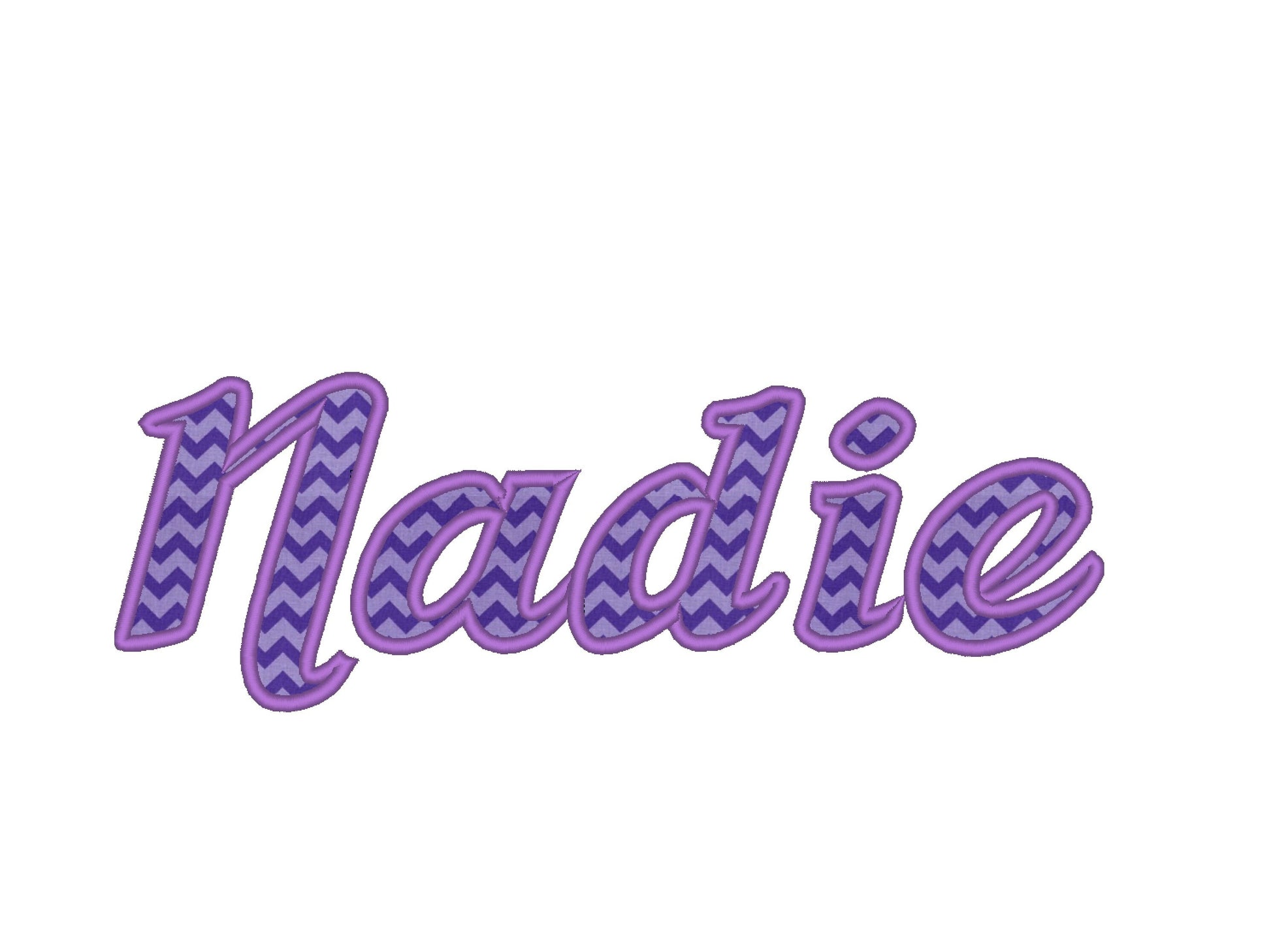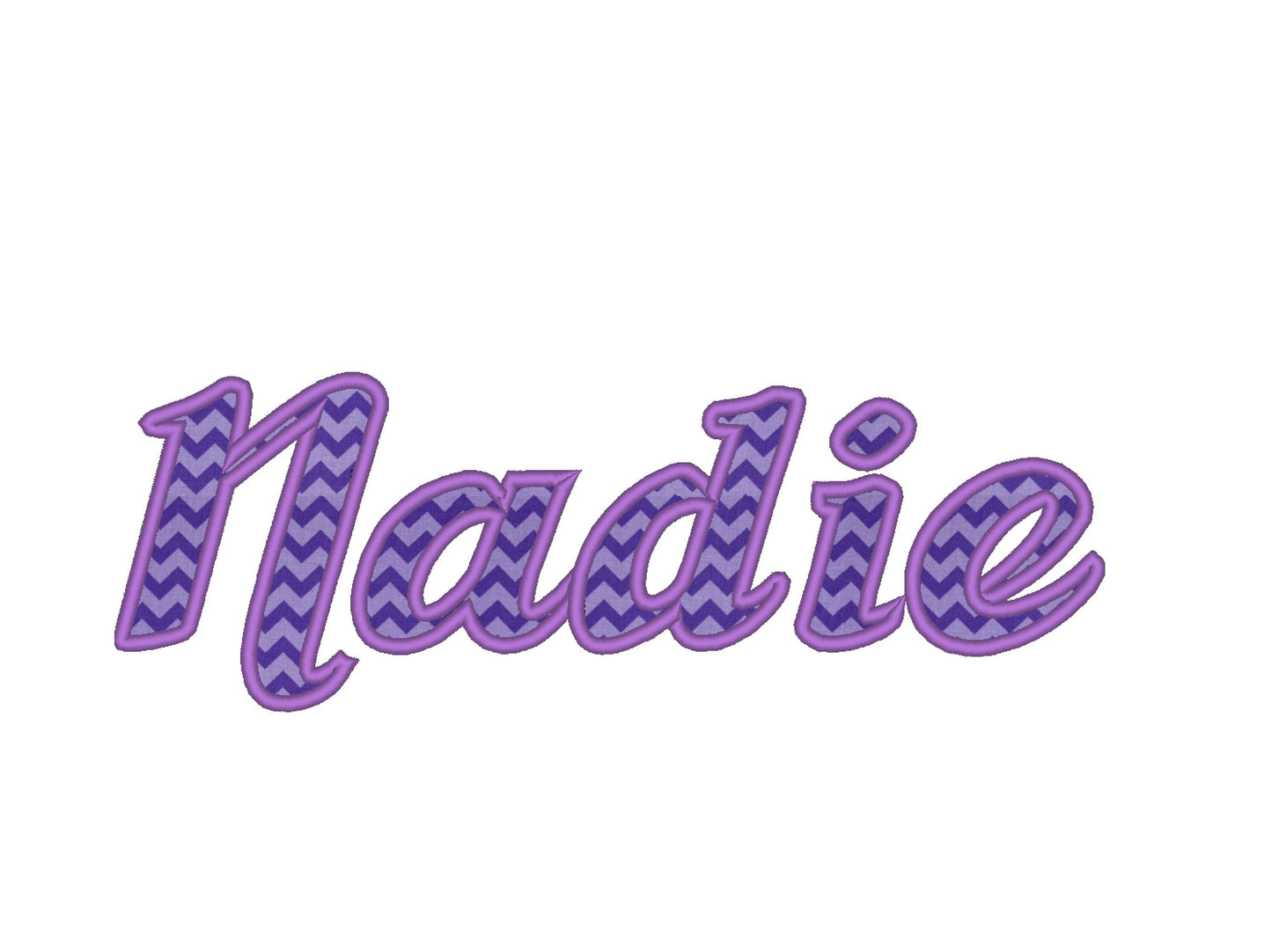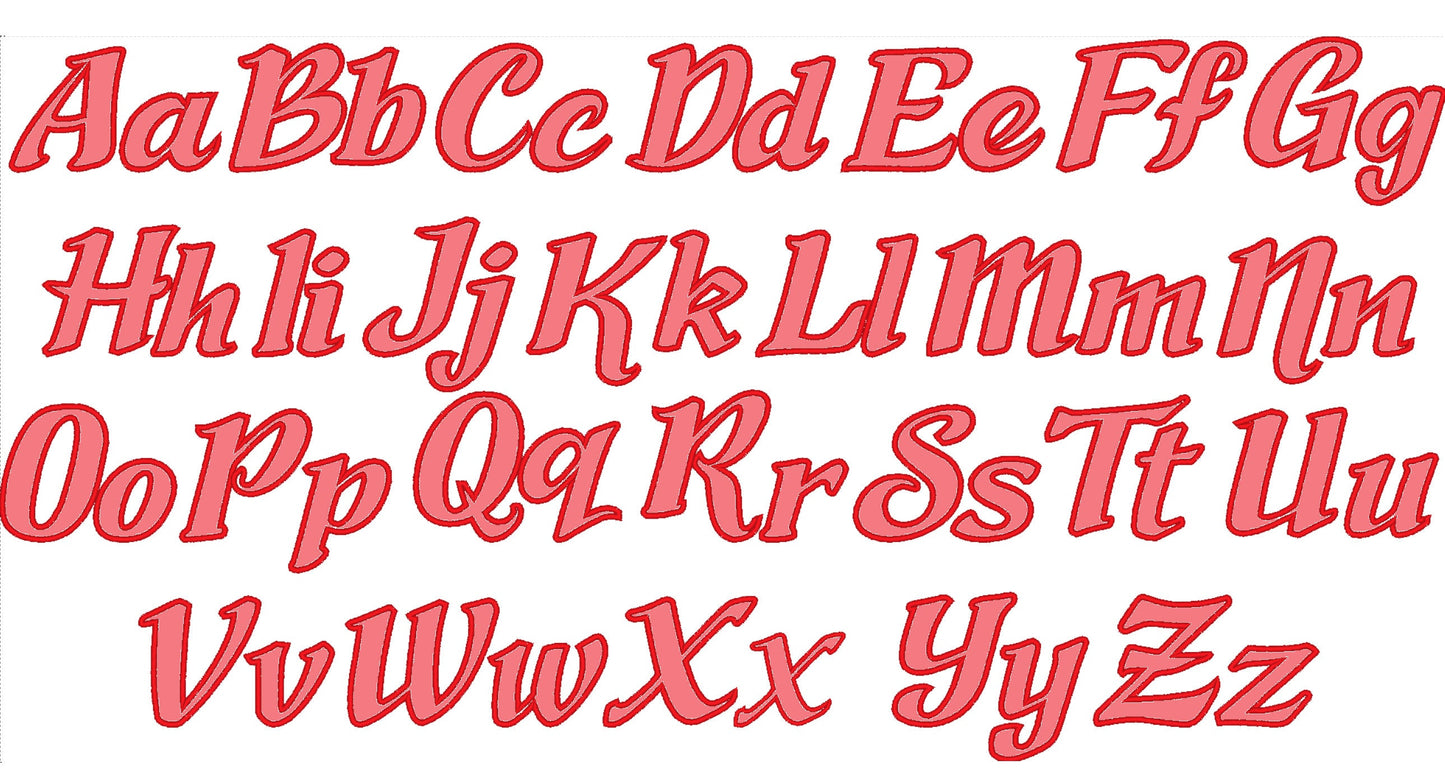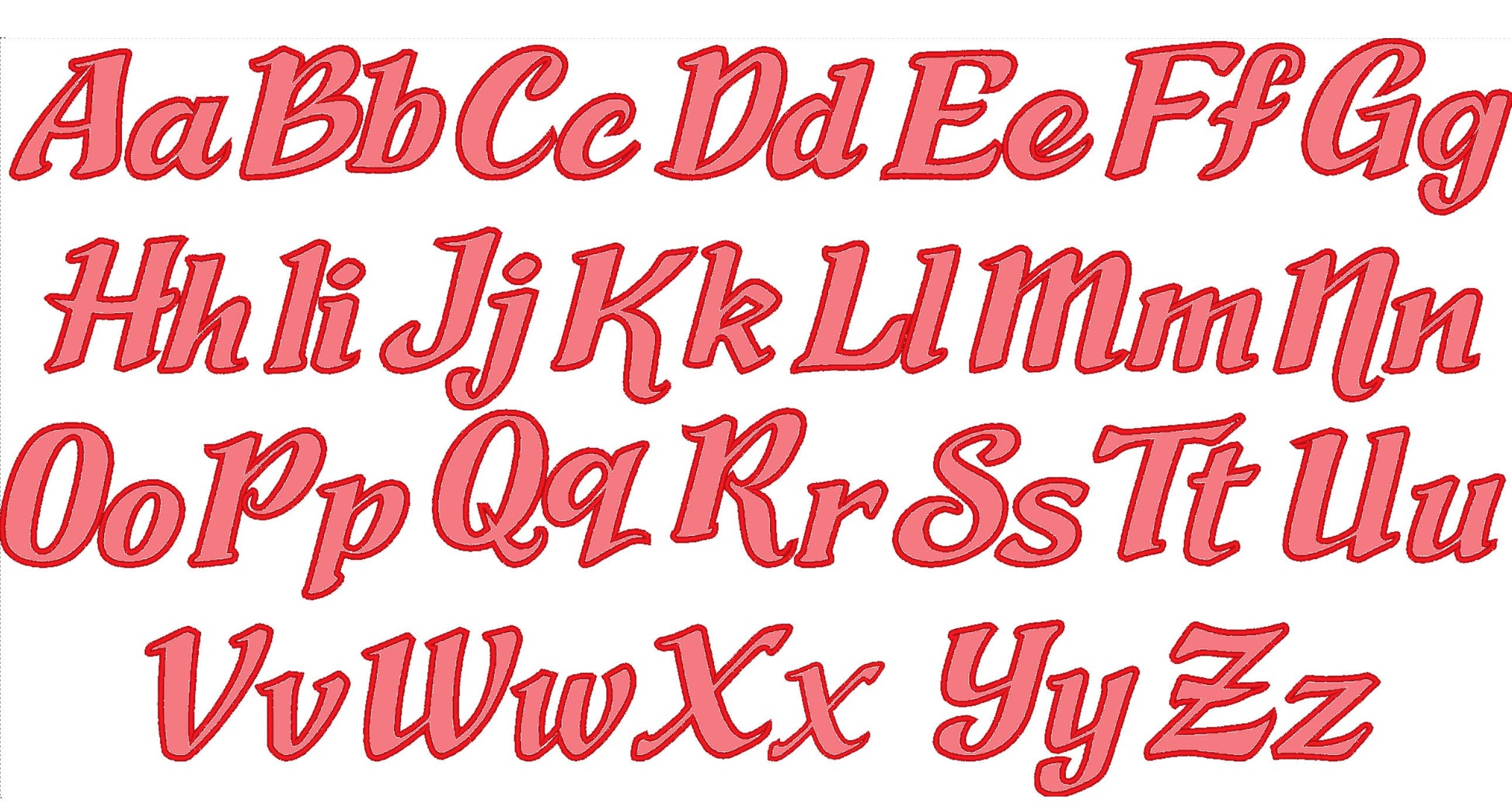
Or click to open the linkA cursive applique monogram font, for names and initials on towels, pillows and kids' clothes.
Applique cursive letters, uppercase and lowercase, in five sizes: 1.6, 2, 2.4, 2.8 and 3.9 inches.